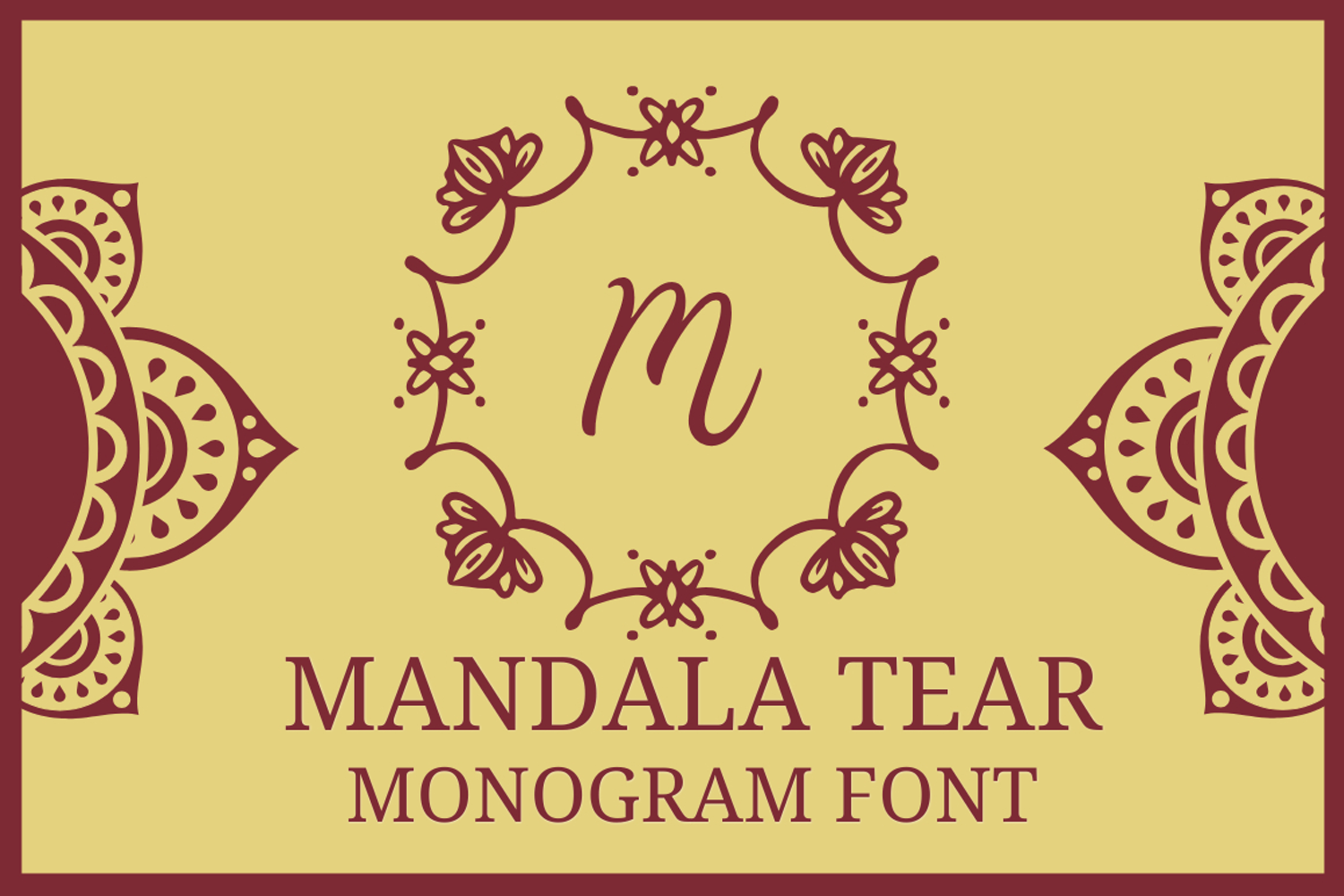
Mandala Tear Monogram Font brings an elegant Indian aesthetic to your monogram work. Each glyph features refined lotus-inspired flourishes arranged in a round frame. The set includes uppercase, lowercase, and numerals.
Need a frame without a letter? Press “.” or “,” to place the Monogram Frame Without Letter, then add a name or initial in your design software. The font converts to crisp vector outlines, scales cleanly from small labels to large signage, and is smooth for cutting and print-then-cut workflows.